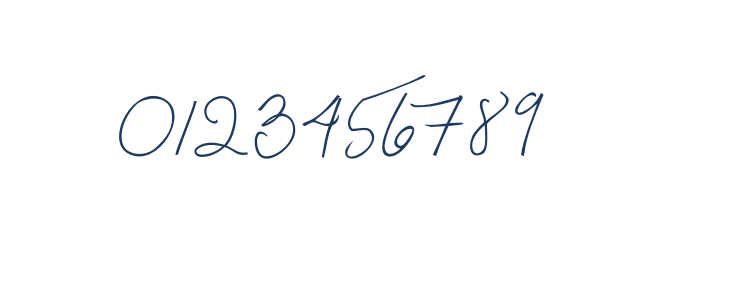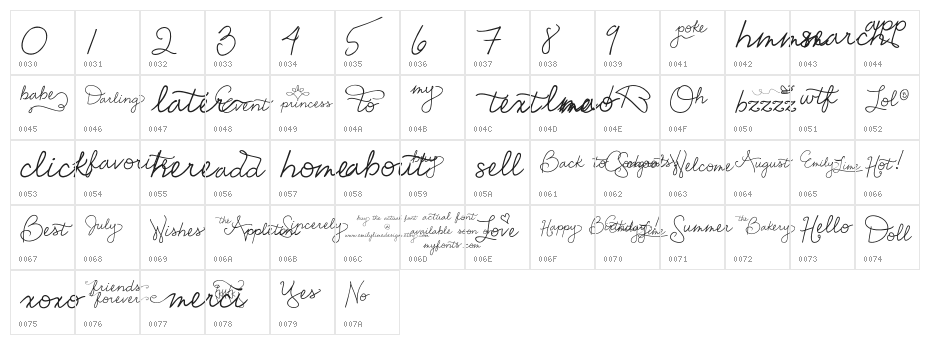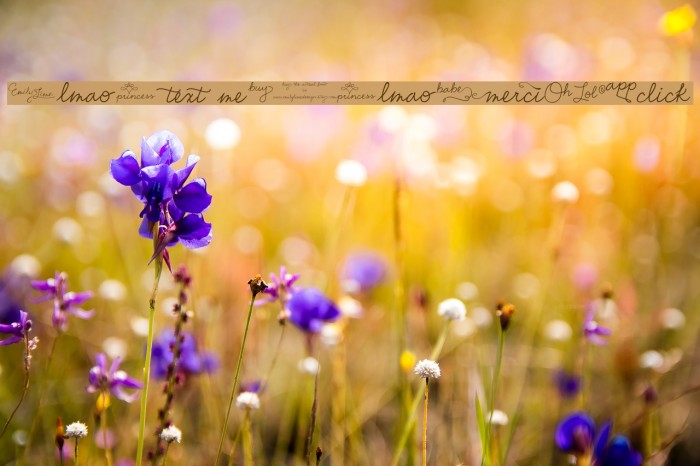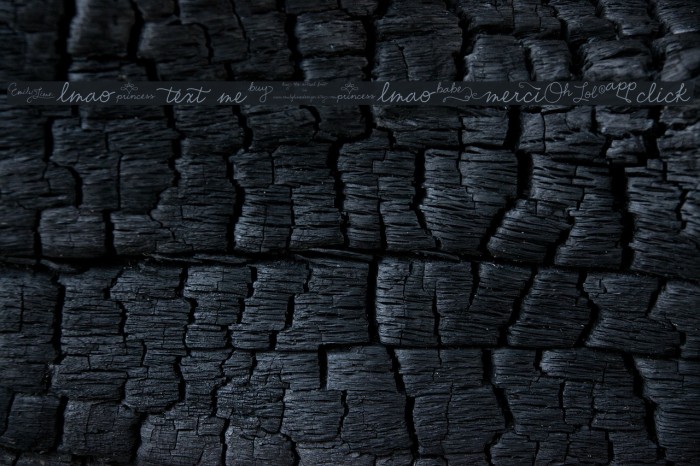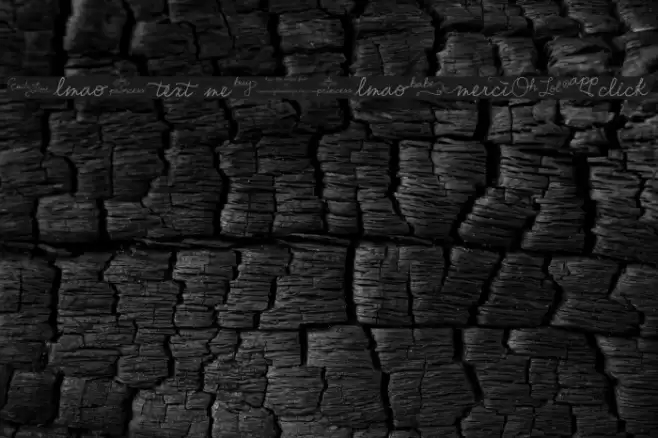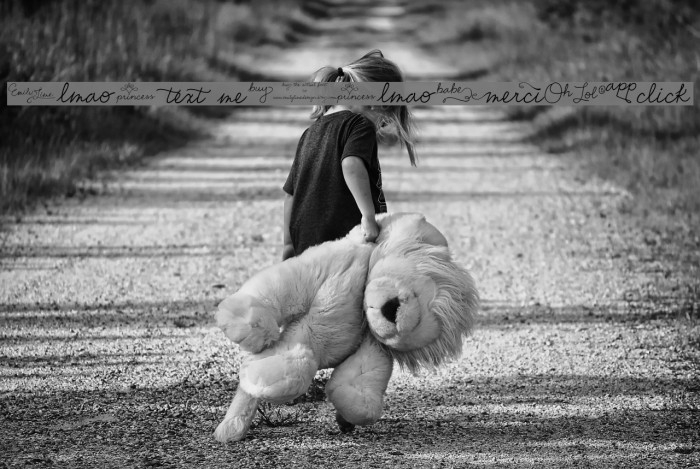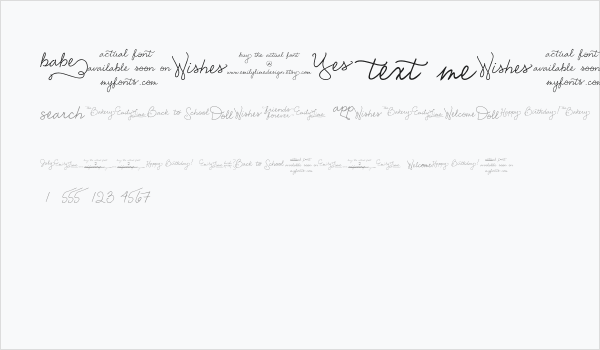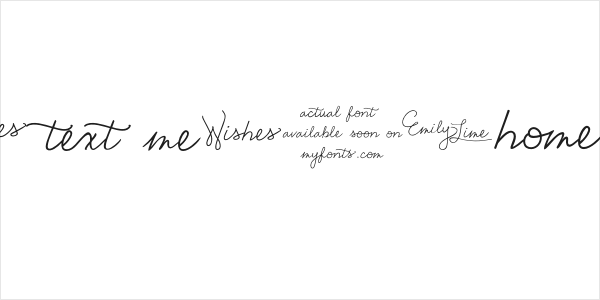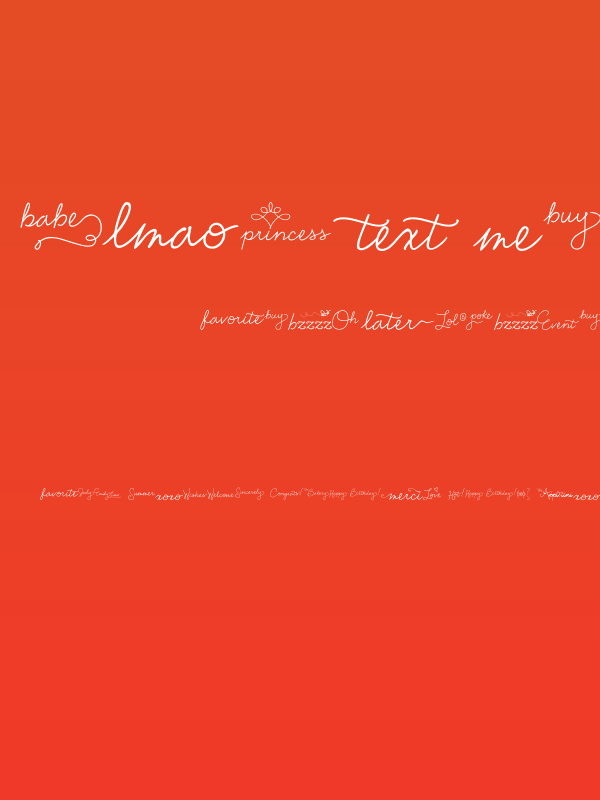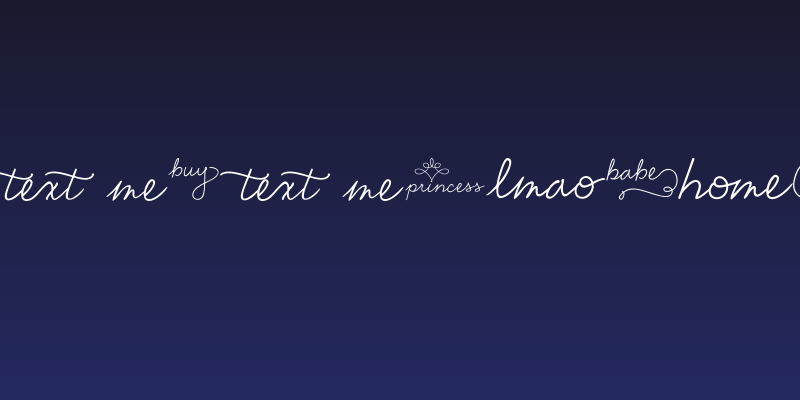
EmilyLimeWords Font
EmilyLimeWords Description
This font exudes a whimsical and playful charm, characterized by its flowing, cursive script that mimics elegant handwriting. The letters are interconnected with smooth, sweeping strokes, giving it a fluid and dynamic appearance. The uppercase letters are ornate, with flourishes that add a touch of sophistication, while the lowercase letters maintain a consistent, graceful flow. The numerals are similarly styled, with a slight slant and curvaceous lines that complement the overall aesthetic. Special characters are designed with the same attention to detail, ensuring a cohesive look across all elements. This font is perfect for projects that require a personal, artistic touch, such as invitations, greeting cards, or branding materials that aim to convey creativity and elegance.
| Proposed Projects | Ideal for wedding invitations, greeting cards, personal branding, and artistic projects. |